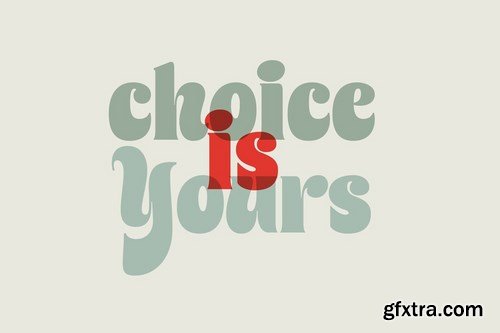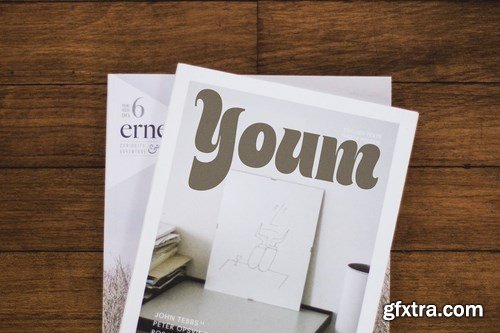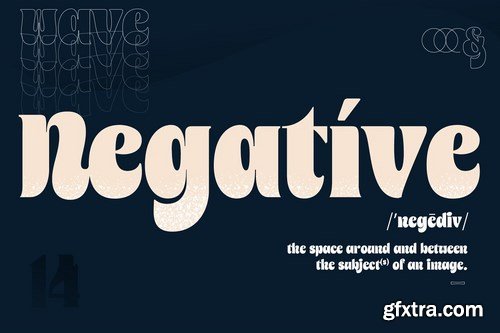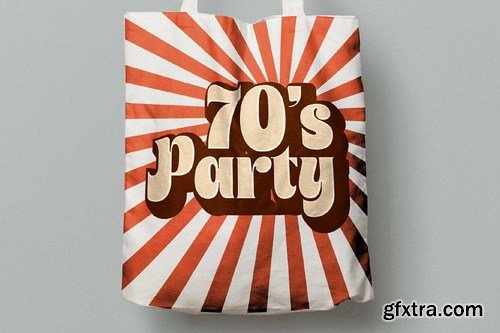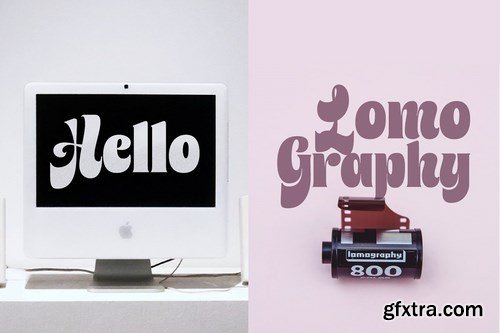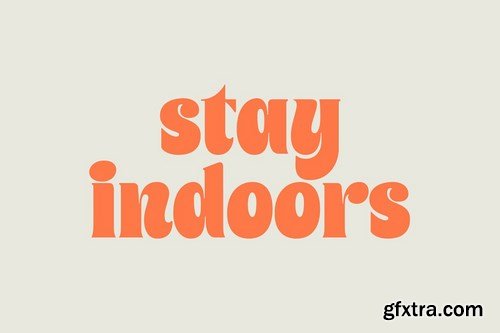
Since a Retro-ish style are never dies. I decided to create a fonts with a curvy 70's style with modern look. An experimental to create a super contrast fonts in a very precise weight. A Bold fonts combined with ultra thin curves made this fonts are stand out for a display fonts, headlines, posters, logo, clothing, branding, etc.
A feature of this fonts are minimalist but very useful. Alternate characters are on a few characters on the Capital letters, Titling alternates are used for replacing the lowercase characters to write in all caps like the sample on the display, the last is the oldstyle figures on a numbers. What's inside : Stanlow.otf Display Image